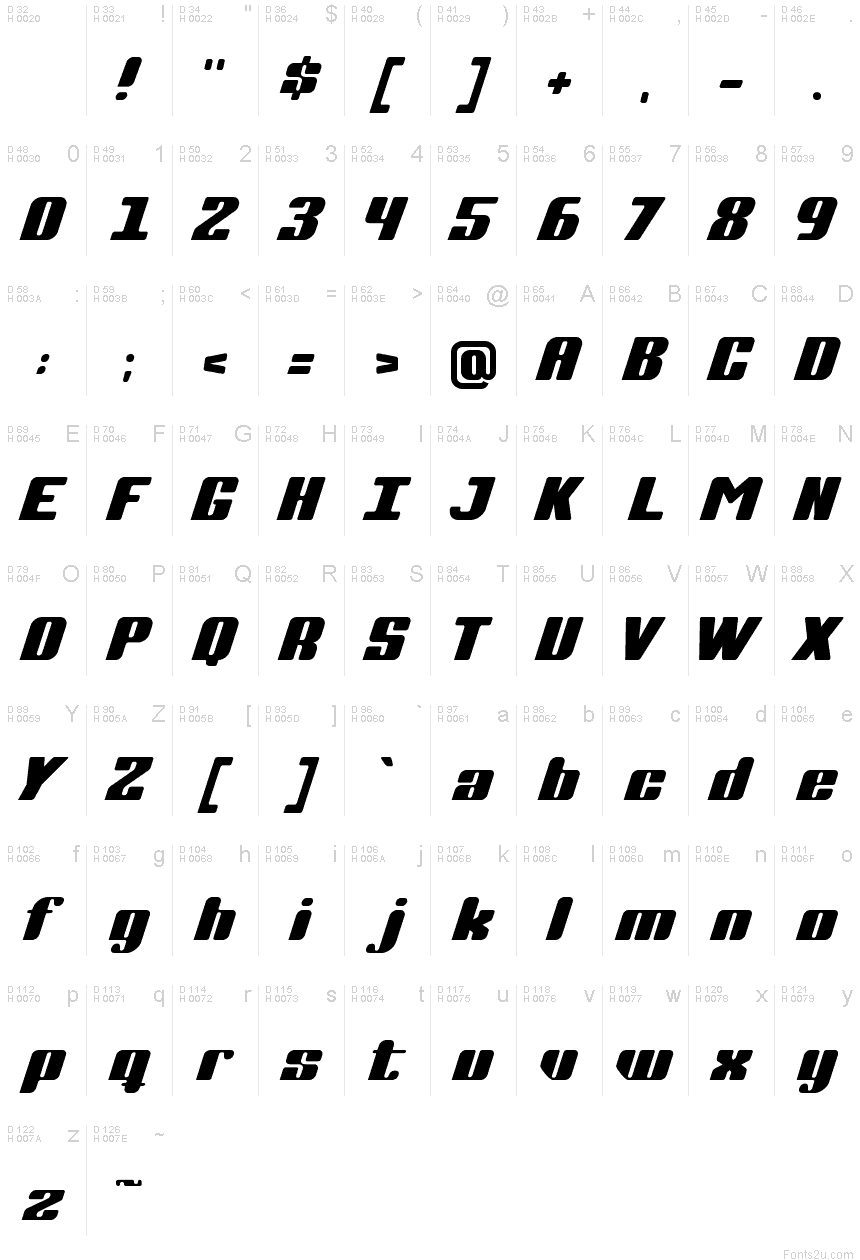
CompleteItalic
Complete Italic font by Hreggvidur Arsaelsson is a free modern display typeface. Every letter is driven forward with a hard, fast italic slant and thick, blocky strokes that feel like they’ve been cut from glossy vinyl. The tight rhythm, sharp angles, and dense, inky texture give it a high-speed, trackside attitude that grabs attention in a split second.
Using Complete Italic in the Complete family, you get a bold voice for sports branding, racing posters, esports logos, energy drinks, event titles, and aggressive apparel graphics. This free font thrives at large sizes where its slanted forms can stretch across banners or hero images. Pair it with a clean, neutral sans-serif for body copy to keep the message legible while the headline does the shouting.